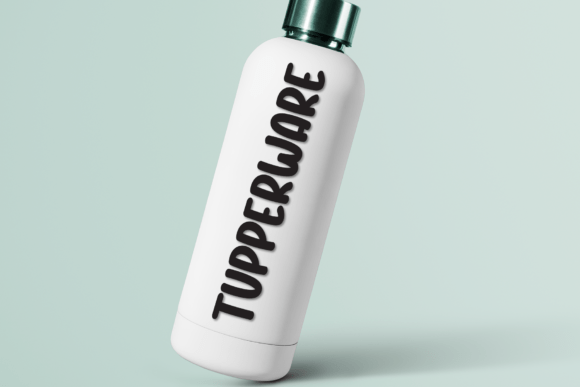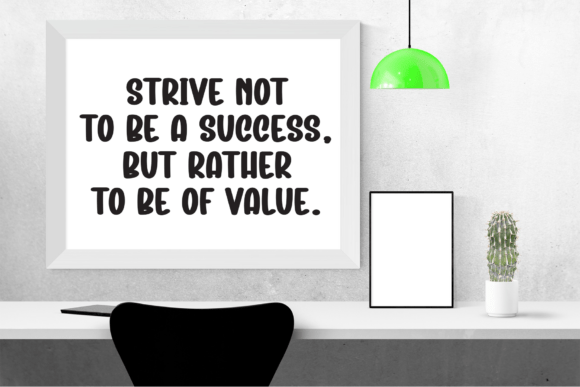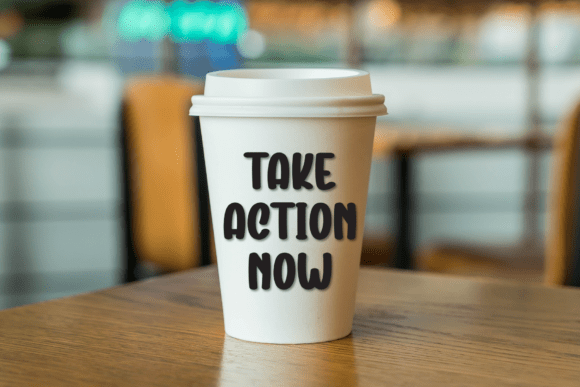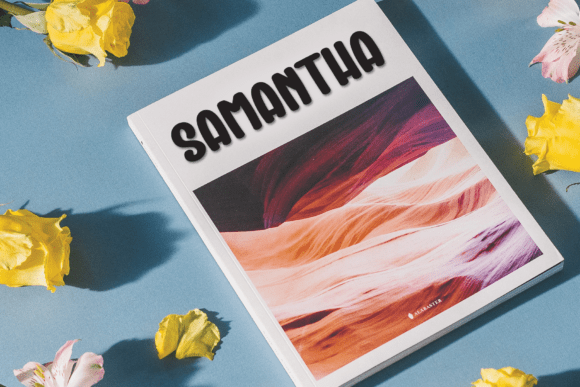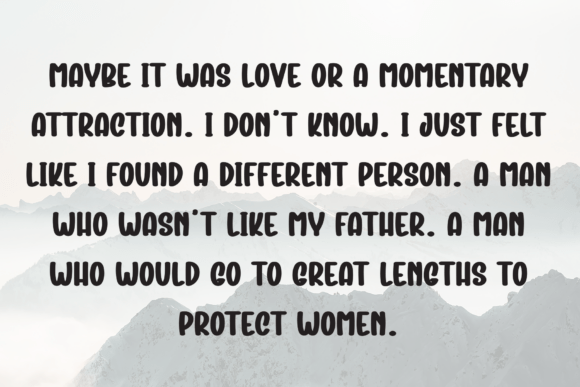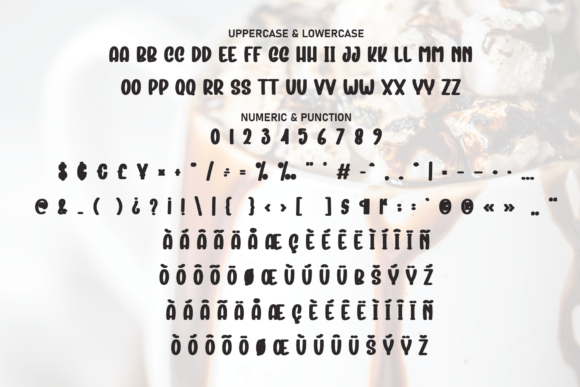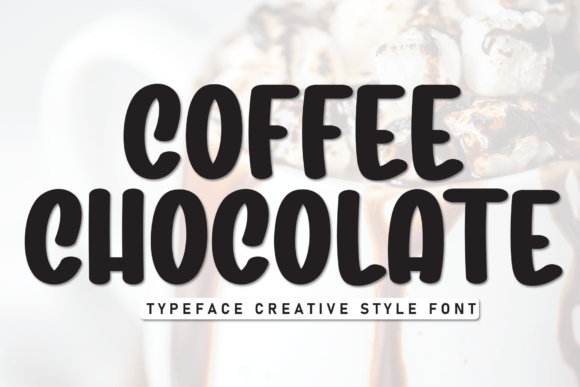
Coffee Chocolate Font: The Perfect Blend of Fun and Relaxation
Are you looking for a font that captures the essence of a carefree summer day? Look no further than the Coffee Chocolate Font! This neat and casual display font is designed to radiate fun and relaxation, making it perfect for a variety of creative projects. In this article, we’ll dive into the features and benefits of the Coffee Chocolate Font, and explore how it can elevate your designs.
A Font that Embodies the Spirit of Summer
Coffee Chocolate Font is a cheerful typeface that brings a breezy, laid-back feel to any creative project or message. Its clean lines and easygoing vibe make it an ideal choice for summer posters, event flyers, and playful branding. Whether you’re designing a brochure for a beachside resort, a flyer for a music festival, or a logo for a trendy coffee shop, this font is sure to capture the essence of a fun and carefree summer day.
Key Features of Coffee Chocolate Font
- Clean Lines: The Coffee Chocolate Font features clean and crisp lines that give it a modern and fresh feel.
- Easygoing Vibe: The font’s casual and relaxed vibe makes it perfect for designs that require a laid-back feel.
- Display Font: Coffee Chocolate Font is a display font, making it ideal for headlines, titles, and short phrases.
- Cheerful and Playful: The font’s playful and cheerful personality makes it perfect for designs that require a fun and upbeat tone.
Coffee Chocolate Font is a versatile typeface that can be used by designers and crafters for a variety of projects. Whether you’re creating:
- Summer Posters: Use Coffee Chocolate Font to create eye-catching posters for summer events, promotions, or announcements.
- Event Flyers: Add a playful touch to your event flyers with this fun and casual font.
- Playful Branding: Use Coffee Chocolate Font to create a unique and memorable brand identity for your business or product.
- DIY Crafts: This font is also perfect for crafters who want to add a personal touch to their DIY projects, such as handmade cards, gift tags, or scrapbooking.
Why Choose Coffee Chocolate Font?
With so many fonts available, why choose Coffee Chocolate Font? Here are just a few reasons:
- Unique Personality: Coffee Chocolate Font has a unique and playful personality that sets it apart from other fonts.
- Easy to Read: The font’s clean lines and simple design make it easy to read, even at larger sizes.
- Versatile: Coffee Chocolate Font can be used for a variety of projects, from digital designs to print materials.
Tips for Using Coffee Chocolate Font
Here are a few tips for getting the most out of Coffee Chocolate Font:
- Use it as a Display Font: Coffee Chocolate Font is designed to be used as a display font, so use it to create eye-catching headlines and titles.
- Pair it with Other Fonts: Experiment with pairing Coffee Chocolate Font with other fonts to create a unique and interesting contrast.
- Experiment with Colors: The font’s playful personality lends itself well to bright and bold colors, so don’t be afraid to experiment with different color schemes.
In conclusion, Coffee Chocolate Font is a fun and versatile typeface that’s perfect for designers and crafters looking to add a playful touch to their projects. With its clean lines, easygoing vibe, and cheerful personality, this font is sure to capture the essence of a carefree summer day. Whether you’re creating summer posters, event flyers, or playful branding, Coffee Chocolate Font is the perfect choice.